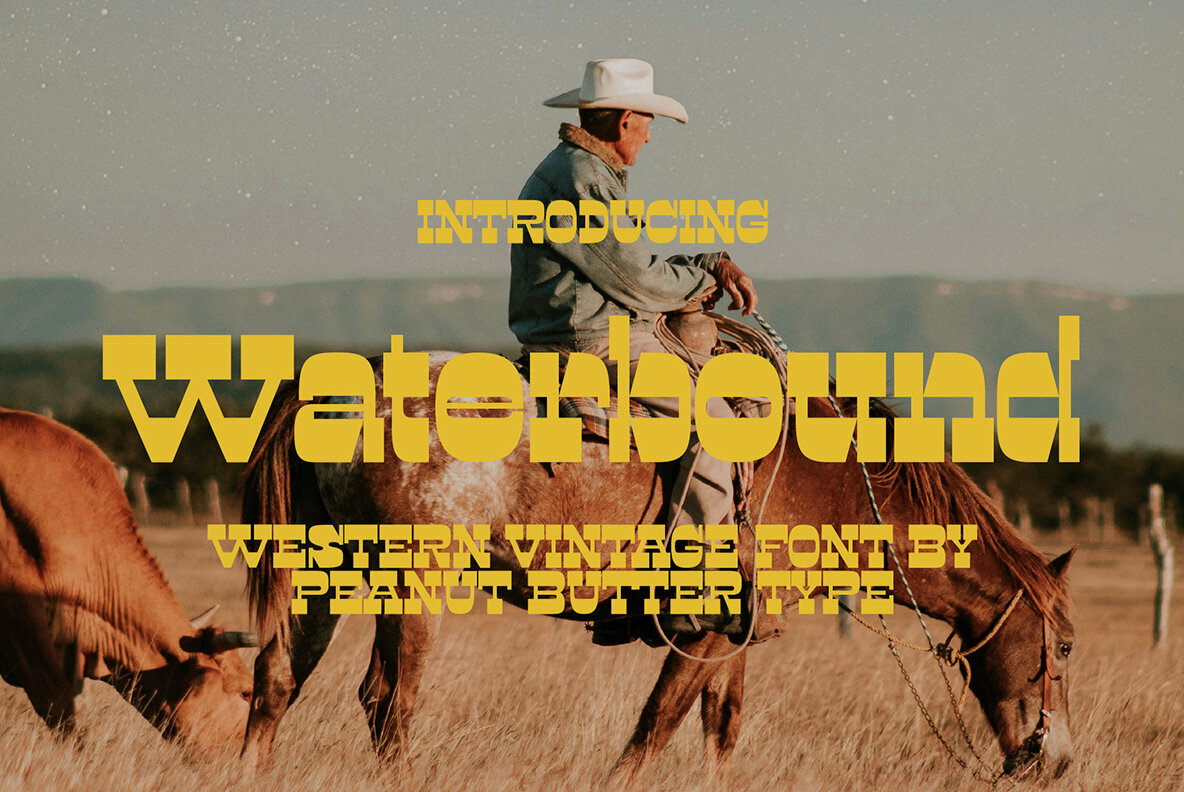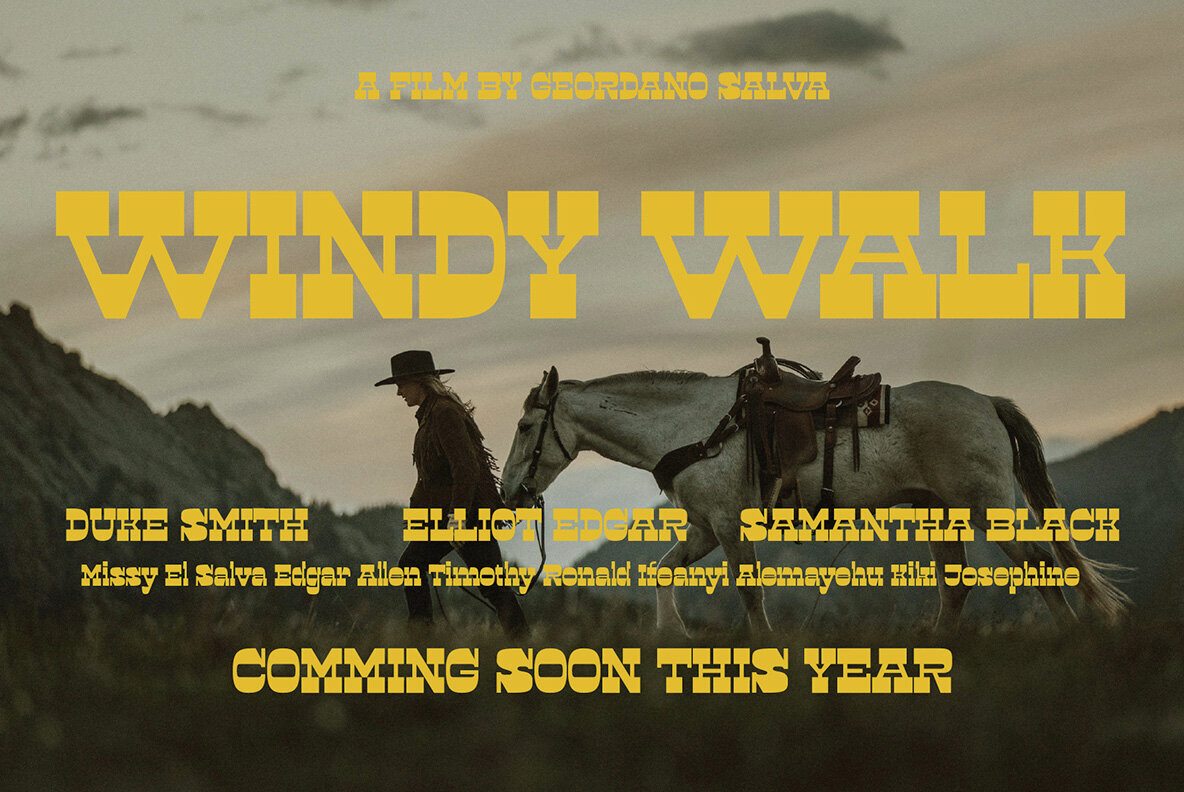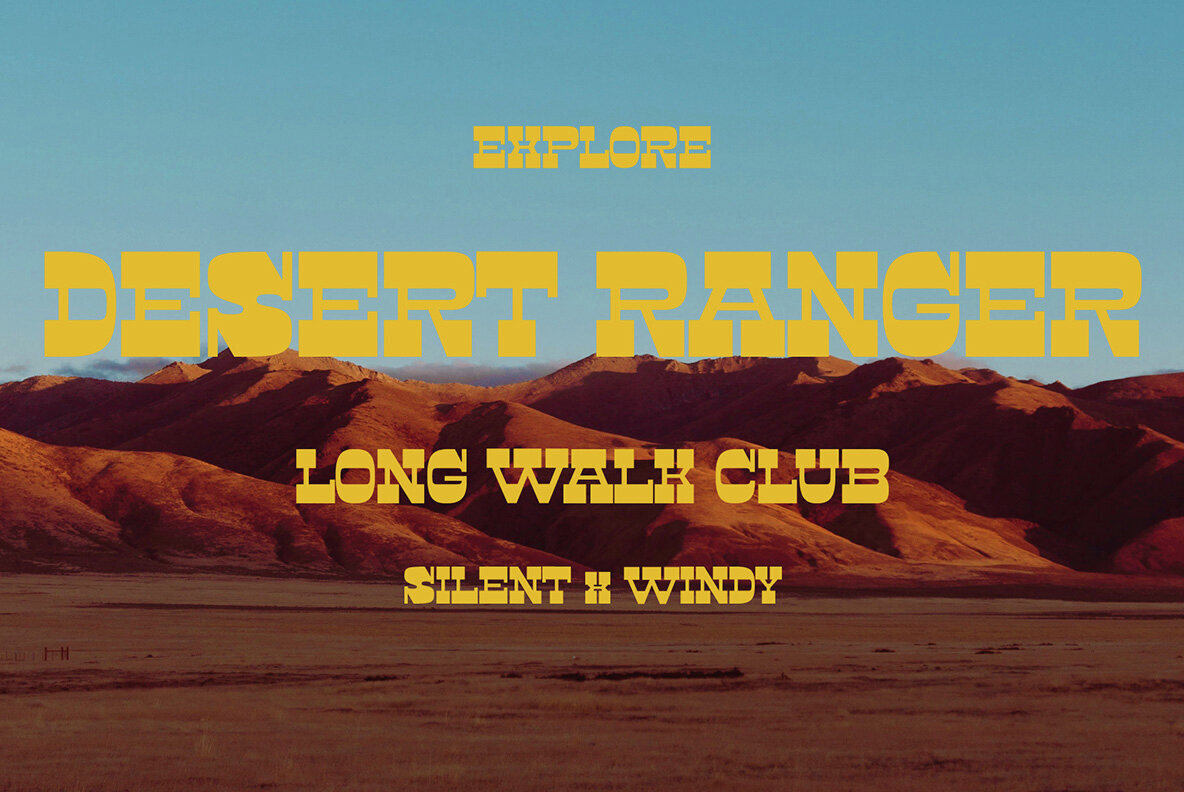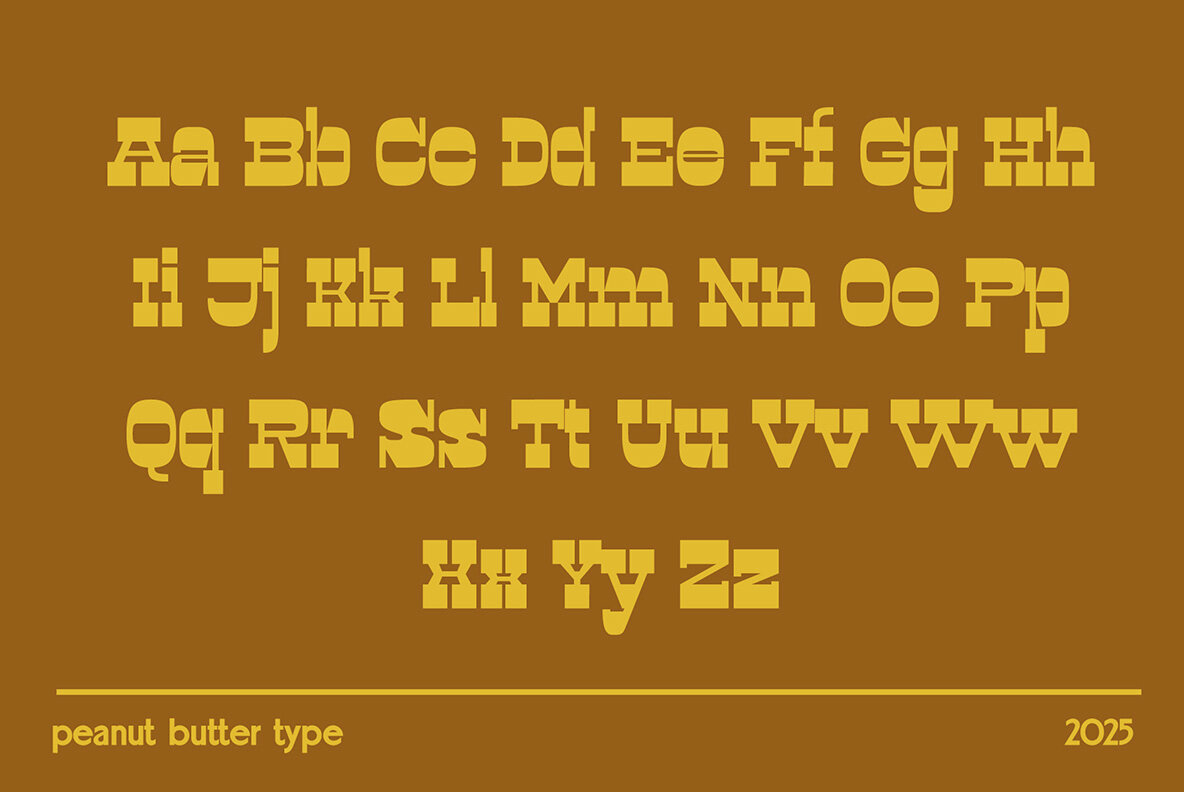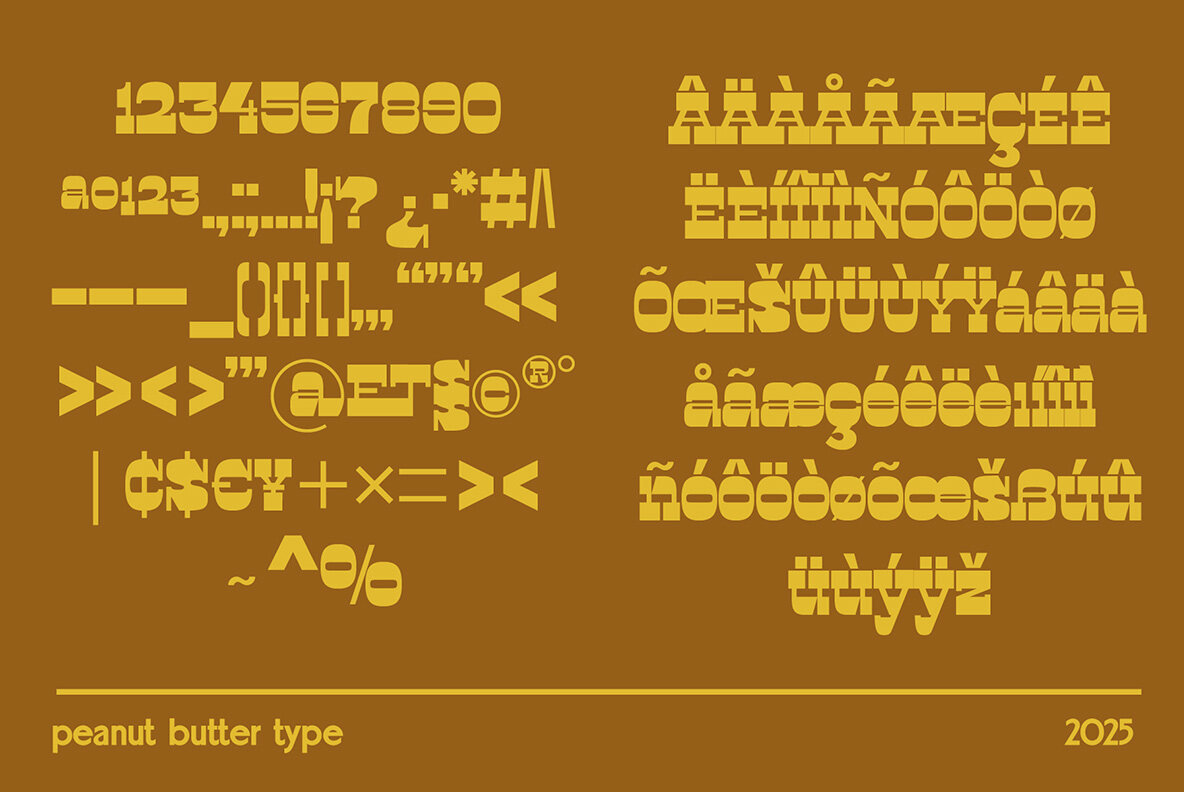
Waterebound Font
Waterbound Regular
Waterbound embodies the essence of western vintage aesthetics with bold letterforms and decorative serifs. It draws inspiration from the 19th-century woodblock printing and saloon signage, integrating rustic charm with a handcrafted feel. Thick strokes, slightly condensed proportions, and ornate details define this font, making it ideal for projects seeking a nostalgic or adventurous atmosphere.Waterbound: Western Vintage-Style Font
Waterbound excels in modern reinterpretations of western design or when adding a vintage touch to contemporary layouts. It seamlessly combines grit, tradition, and artistic expression, ensuring your projects make a lasting impression.